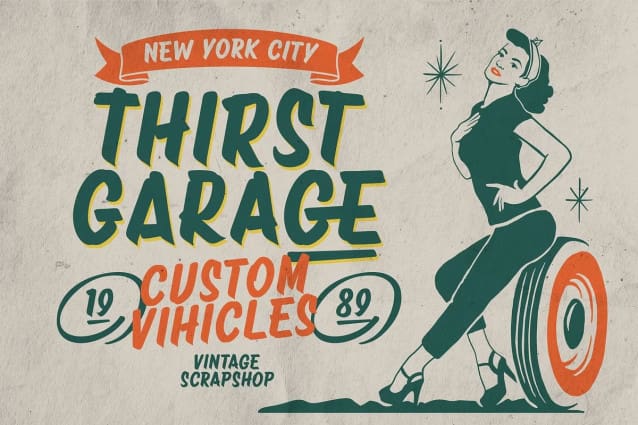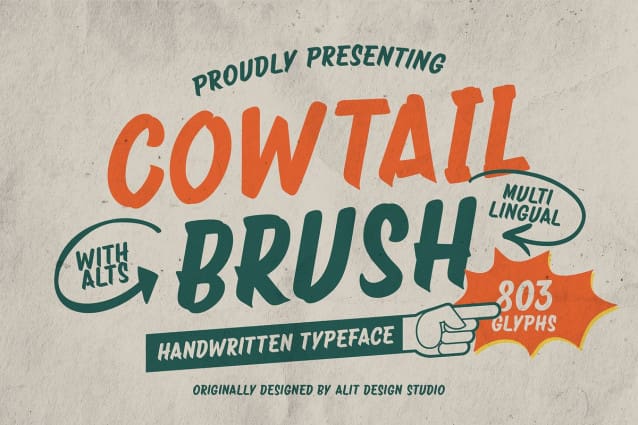
Cowtail Brush Font
Cowtail Brush Font is a beautifully crafted typeface inspired by vintage sign brush lettering. Designed to evoke the charm and authenticity of classic hand-painted signage, this font delivers a true handwritten look with fluid strokes and organic curves, perfect for adding a nostalgic yet timeless feel to your designs.
Featuring 803 meticulously designed characters, including a rich set of ligatures and alternate characters, Cowtail Brush Sign offers a wide variety of letter combinations, giving your work a more personalized and handcrafted touch. Whether you’re creating logos, packaging, posters, or branding materials, this font brings warmth and individuality to any project.
With multilingual support, this font is versatile enough for global use, ensuring your designs can communicate across different languages. The inclusion of PUA Unicode makes it even easier to access all the special characters and glyphs, allowing for quick customization and design flexibility.